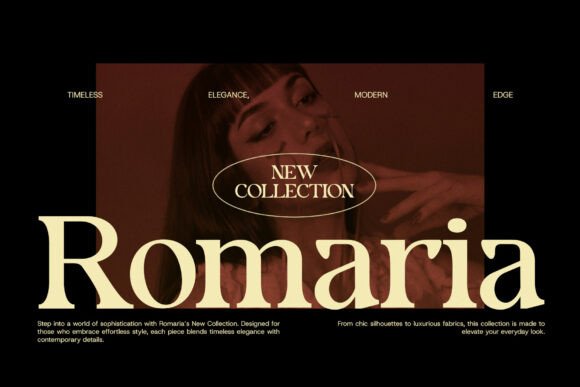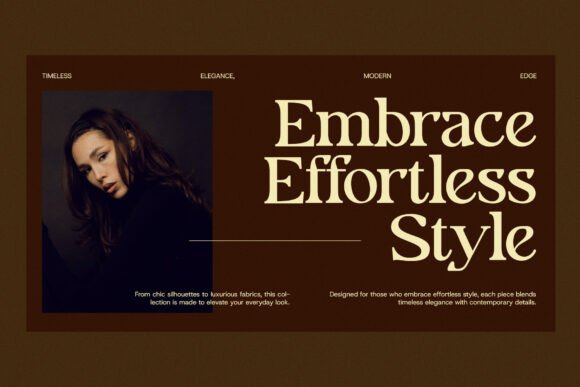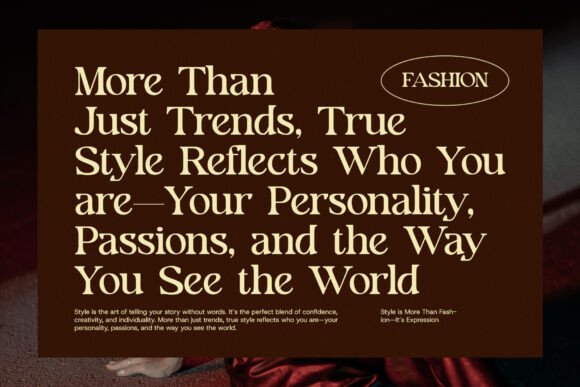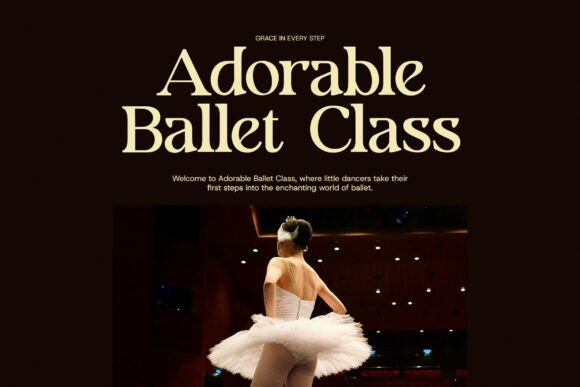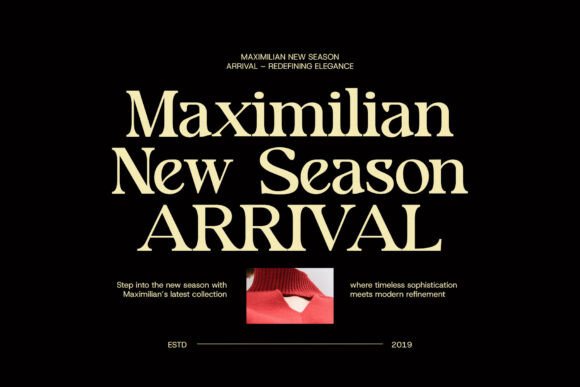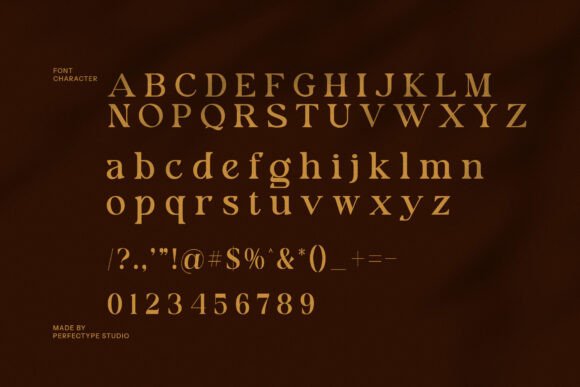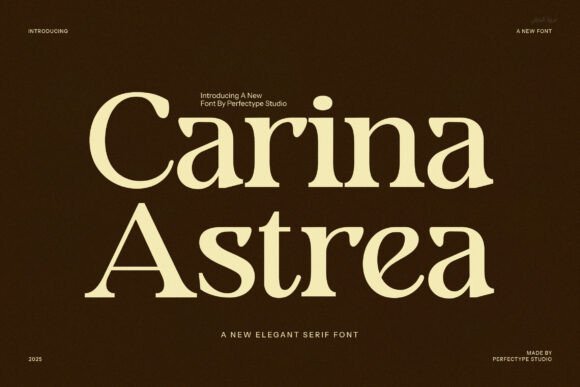
Introducing Carina Astrea Font: Elevate Your Designs with Elegance and Sophistication
In the world of typography, a font can make or break a design. If you’re a designer or crafter looking for a typeface that exudes luxury, sophistication, and modernity, look no further than the Carina Astrea Font. This elegant serif font is meticulously crafted to bring a touch of high-end style to any project, making it an excellent choice for those who want to make a bold yet refined statement.
The Perfect Balance of Elegance and Contemporary Design
Carina Astrea Elegant Serif Font strikes the perfect balance between elegance and contemporary design. Its refined serifs and graceful curves offer an air of luxury, making it suitable for a wide range of applications, from chic branding and luxury logos to stylish websites and upscale magazine layouts. The font’s beautifully proportioned letterforms ensure exceptional readability, making it suitable for both print and digital use.
Unique Features of Carina Astrea Font
So, what sets Carina Astrea apart from other fonts? Here are some of its unique features:
- Stunningly crafted ligatures and alternate characters: Carina Astrea boasts an impressive array of ligatures and alternate characters, allowing designers to add a unique touch to their projects.
- Refined serifs and graceful curves: The font’s serifs and curves are carefully crafted to provide an air of luxury and sophistication.
- Exceptional readability: Carina Astrea’s letterforms are beautifully proportioned, ensuring that text is easy to read in both print and digital formats.
- Endless creative possibilities: With its unique ligatures and alternate forms, Carina Astrea provides designers with endless creative possibilities.
One of the standout features of Carina Astrea Font is its versatility. It can be used seamlessly in a wide range of applications, including:
- Chic branding and luxury logos: Add a touch of sophistication to your brand’s identity with Carina Astrea.
- Stylish websites: Elevate your website’s design with this elegant font.
- Upscale magazine layouts: Carina Astrea is perfect for creating visually stunning magazine layouts.
- Elegant boutiques and fine dining restaurants: Use Carina Astrea to create a luxurious atmosphere for your boutique or restaurant.
- Premium product lines: Add a touch of sophistication to your product line with Carina Astrea.
Why Choose Carina Astrea Font?
With so many fonts available, why choose Carina Astrea? Here are just a few reasons:
- Sophistication and clarity: Carina Astrea brings sophistication and clarity to any design.
- High-end style: This font is perfect for designers who want to create high-end designs.
- Exceptional readability: Carina Astrea ensures that text is easy to read in both print and digital formats.
- Endless creative possibilities: With its unique ligatures and alternate forms, Carina Astrea provides designers with endless creative possibilities.
In conclusion, Carina Astrea Font is a sophisticated and modern typeface that embodies the perfect balance between elegance and contemporary design. Its stunningly crafted ligatures and alternate characters, refined serifs, and graceful curves make it an excellent choice for designers who want to make a bold yet refined statement. With its versatility, exceptional readability, and endless creative possibilities, Carina Astrea is the perfect font for any design project that requires a touch of luxury and sophistication.